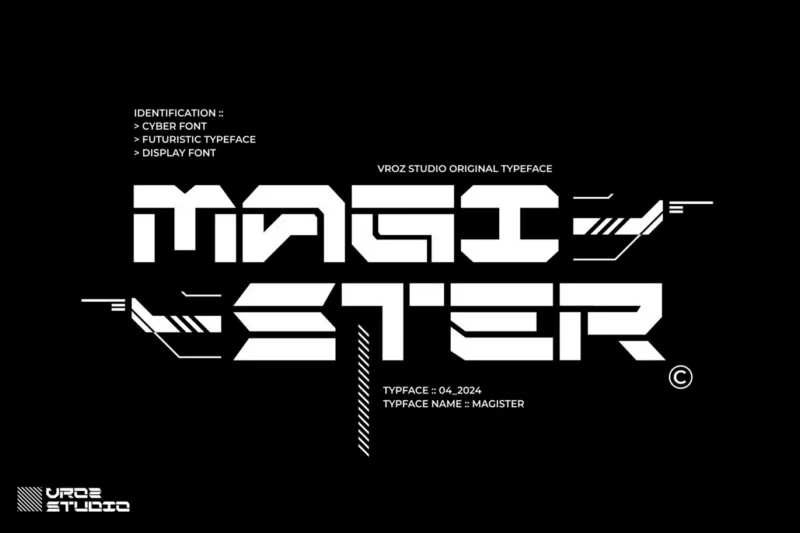
Magister – Futuristic Typeface
Magister – Futuristic Display Typeface
Magister is a futuristic display typeface inspired by cyberpunk aesthetics and advanced technology. Built from clean geometric shapes and hi-tech design principles, Magister delivers a strong modern visual identity for innovative creatives and forward-thinking brands. Designed and developed by VROZ Studio (2024), this typeface brings a sharp, minimal, and tech-driven look to any layout.
Perfect for headlines, posters, branding, billboards, magazine titles, website, thumbnails, packaging, and logo design—any project that needs a bold futuristic touch. Its unique styling ensures your work stands out with confidence and clarity.